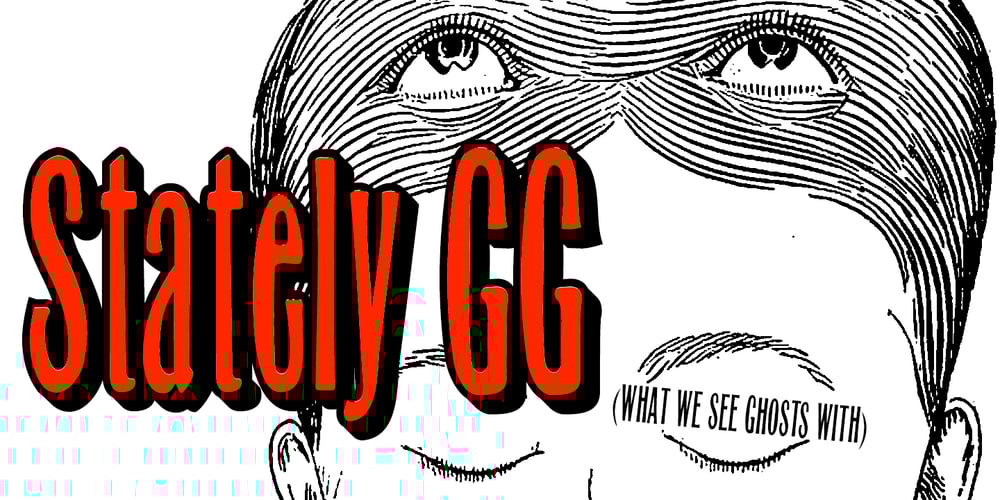
Stately GG Font Family was designed by Nathan Williams and published by Baseline Fonts. Stately GG contains 2 styles and family package options. TWO LAYERED FONT: Be sure to get both the FRONT and the BACK! Maintaining simultaneous shades of whimsy and versatility is no simple feat, but the meticulously constructed Stately Gothic accomplishes just that, elegantly. Stately Gothic is a redrawn version of Grit Gothic. The strong vertical character of this stacking/layered typeface make it an ideal solution for use where legibility matters most: posters, logos, book and album covers, and so on. It is part of Grit History Series B along with Heirloom Artcraft, Worn Gothic, Grit Sans, and Grit Gothic.